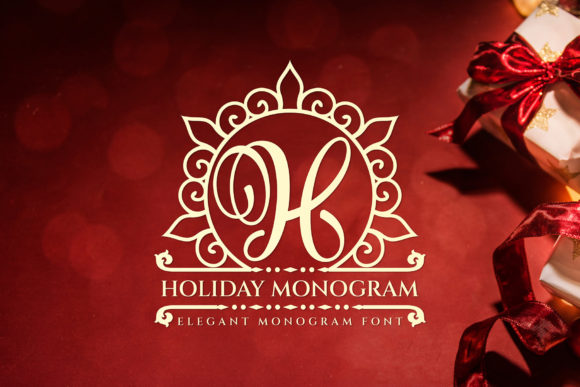
Holiday Monogram: The Handwritten Font for Scroll-Stopping Brands
In the fast-paced ecosystem of digital marketing, visual hierarchy is not just a design principle; it is a survival mechanism. As content creators and brand managers, we fight for attention in feeds that move at lightning speed. The difference between a user scrolling past an ad and stopping to engage often comes down to typography. This is where Holiday Monogram enters the conversation as a strategic asset rather than just a stylistic choice. As a delicate and elegant handwritten decorative font, it offers the perfect balance of personality and professionalism needed to elevate modern campaign graphics.
The visual style of Holiday Monogram is defined by its distinct, well-rounded letters. Unlike aggressive display fonts that scream for attention, this typeface whispers with sophistication. It carries the warmth of a personal note while maintaining the structural integrity required for commercial use. For marketers building a brand identity, this mood is invaluable. It suggests approachability, care, and a touch of luxury without feeling pretentious. When used in social media graphics or email headers, it immediately humanizes the brand, creating an emotional connection before the viewer even reads the copy.
Elevating Digital Campaigns with Elegant Typography
The versatility of Holiday Monogram makes it an essential tool in the kit of any social media manager or content strategist. Its application extends far beyond simple captions. Consider the impact on Instagram Stories and Reels covers. In these formats, text must be legible within a fraction of a second. The rounded strokes of this font ensure clarity even on small mobile screens, while its decorative nature adds the visual flair necessary to stand out against busy video backgrounds.
For YouTube thumbnails, where click-through rates dictate success, Holiday Monogram serves as an excellent choice for titles that need to feel personal or exclusive. It works particularly well for lifestyle vloggers, beauty brands, and educational channels looking to soften their aesthetic. Similarly, in Pinterest pins, which rely heavily on vertical imagery and inspirational messaging, this font helps create a cohesive editorial look that encourages saves and shares.
When designing digital banners for website landing pages, the goal is to guide the user toward a conversion. Using Holiday Monogram for subheadings or call-out quotes can break up the monotony of standard web sans serif fonts. It draws the eye to key value propositions, such as "Limited Edition" or "Handcrafted with Care," reinforcing the premium nature of the offer. This strategic placement enhances readability and ensures that the most important messaging resonates with the audience.
Strategic Font Pairing for Maximum Impact
A common mistake in graphic design is using a decorative font for body copy. Holiday Monogram shines brightest when used for short text, headlines, titles, and logo marks. To create a balanced composition, it should be paired with a complementary typeface. For a clean, modern look, combine it with a geometric sans serif font. This pairing allows the handwritten elements to act as the star while the sans serif provides neutral, highly readable support for longer descriptions or legal disclaimers.
Alternatively, for brands aiming for a more traditional or high-end editorial feel, pairing Holiday Monogram with a classic serif font creates a sophisticated contrast. This combination works exceptionally well for wedding invitations, boutique packaging design, and luxury product launches. The interplay between the structured serifs and the fluid, rounded scripts of Holiday Monogram adds depth to the design, making the overall brand identity feel curated and thoughtful.
Real-World Applications for Marketers
To understand the true potential of this typeface, let us look at specific campaign scenarios. Imagine a small business launching a seasonal promotion. A sale announcement graphic featuring Holiday Monogram for the headline "Winter Collection" instantly conveys a festive yet chic vibe. The font's elegance prevents the sale from looking cheap or desperate, instead framing it as an exclusive opportunity.
For a product teaser, use the font to highlight a single powerful word or phrase over a minimalist background. This technique builds anticipation and focuses the viewer's attention entirely on the message. In the realm of personal branding, coaches and consultants can use Holiday Monogram for inspirational quote graphics. The handwritten style mimics the feeling of a mentor speaking directly to the student, fostering trust and engagement.
Webinar banners and online workshop promotions also benefit from this font. By using it for the speaker's name or the event title, organizers can add a personal touch that suggests the event will be interactive and engaging rather than a dry lecture. For online shop promotions, incorporating this font into branded templates ensures visual consistency across all touchpoints, from the website header to the thank-you card included in the package.